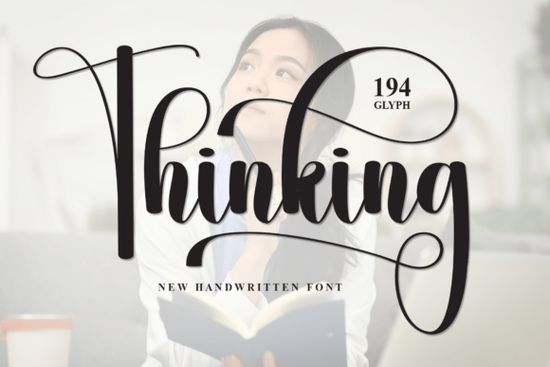
Adding a personal touch to your graphics often requires more than just standard letters. You need something that feels crafted by hand yet remains professional. That is where Thinking Font becomes a valuable asset for your project files. This playful display type offers a blend of whimsy and elegance that helps your audience connect emotionally with your message. Whether you are working on print-on-demand products or digital downloads, having this character set available ensures your designs stand out without sacrificing readability.
What makes this script suitable for creative projects?
Designers often look for versatility when selecting a typeface. This particular style leans towards a sweet and friendly atmosphere, making it ideal for events that celebrate milestones. Imagine creating custom packaging for a boutique shop or designing invitation suites for a bridal shower. The aesthetic balances being adorable while maintaining a sense of class, which prevents the design from looking too childish. It infuses every letter with a touch of love, turning a simple greeting into something memorable.
While this choice works wonderfully for feminine themes, it also fits perfectly into modern branding strategies that aim to appear approachable. Small business owners often benefit from using it because it conveys warmth instantly. It helps bridge the gap between corporate identity and a customer-centric vibe. However, if you need something slightly more fluid or sophisticated, you might explore options like Belahgio Script Fonts, which offer a different stroke width but share that elegant handwritten quality.
How does it compare to other popular handwriting styles?
The market is filled with many options, so finding the right fit matters. When you choose Thinking Font, you get a balance of fun and chic aesthetics. If you prefer a style that emphasizes legibility over pure decoration, checking out Majestica Script Fonts could be a smart alternative for your project archive. Conversely, if you enjoy a relaxed vibe that feels effortless, the relaxed nature of Sandbeach Font Script Fonts provides another layer of variety to consider before committing.
- Test Pairing: Combine with a clean sans-serif for headlines and body text contrast.
Ultimately, the goal is to create designs that resonate clearly with your audience without causing friction. Choosing a tool that feels authentic to your brand voice simplifies the workflow. When the typography supports the message rather than fighting against it, the result looks intentional and polished.